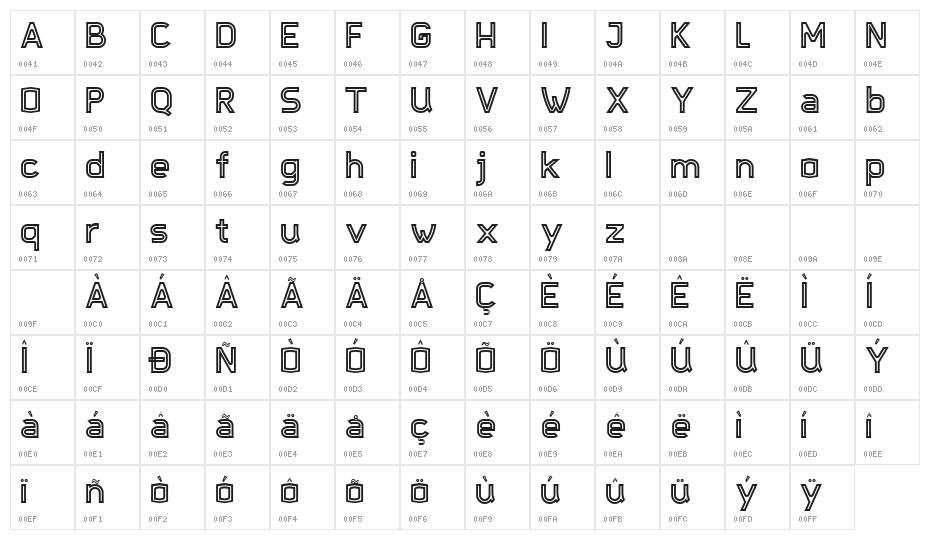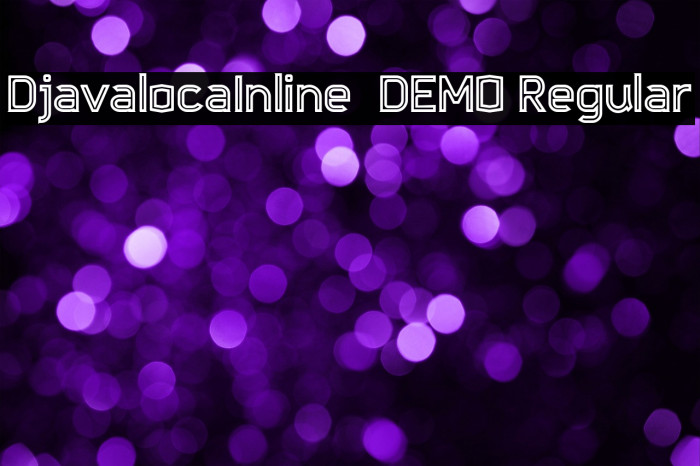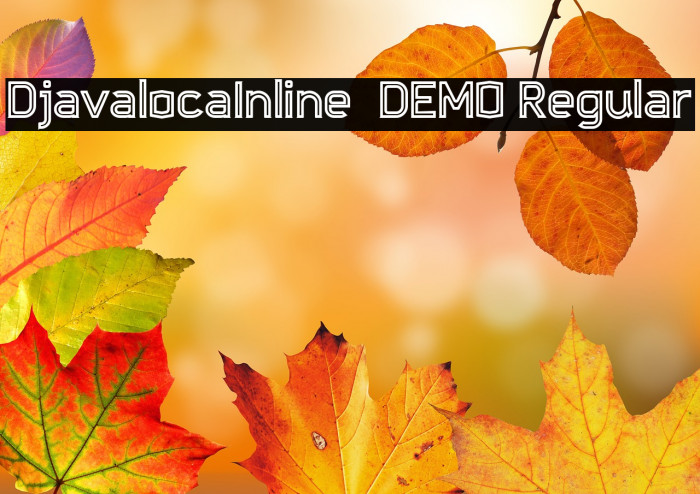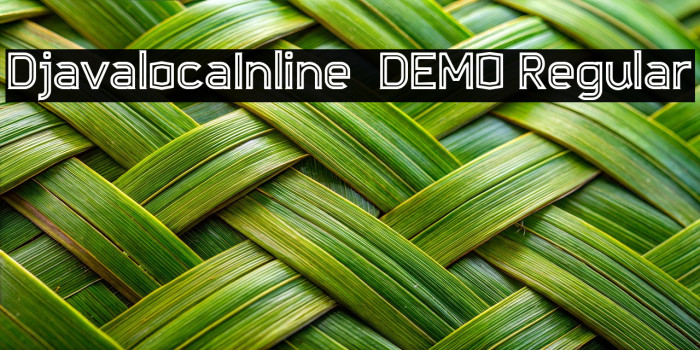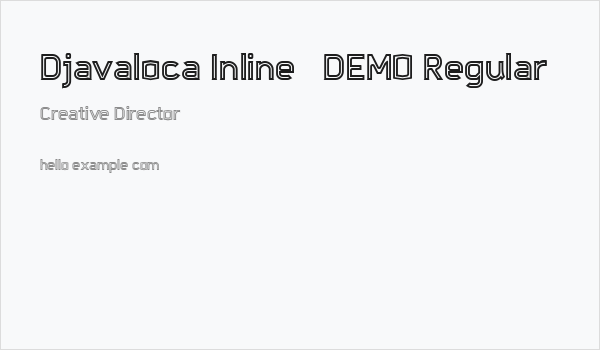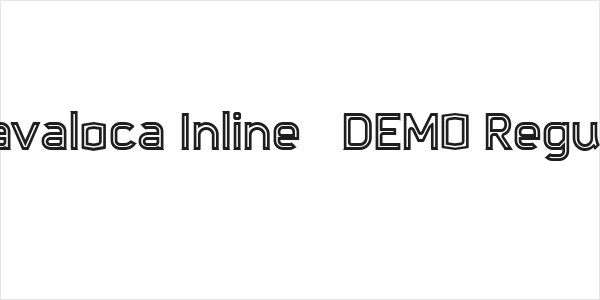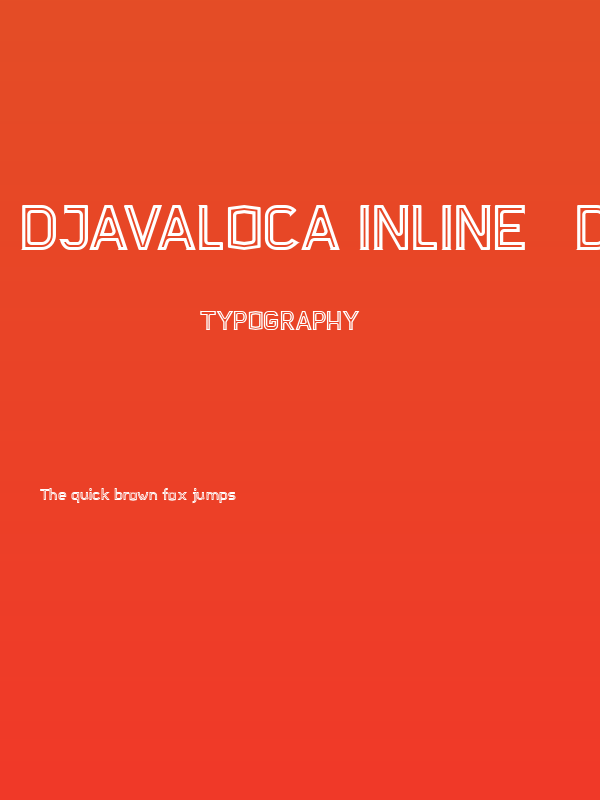
Djavaloca-Inline - DEMO Regular Font
Djavaloca-Inline - DEMO Regular Description
This font features a unique inline style that gives it a modern and dynamic appearance. The characters are outlined with a consistent stroke width, creating a hollow effect that adds depth and interest. The uppercase and lowercase letters maintain a geometric structure, with sharp angles and clean lines. The numerals and special characters follow the same design principles, ensuring uniformity across all glyphs. This font is particularly eye-catching due to its bold outline and the contrast between the inner space and the outer lines. It is well-suited for projects that require a contemporary and striking visual impact.
| Proposed Projects | Ideal for branding, posters, headlines, and digital media where a modern and bold statement is needed. |